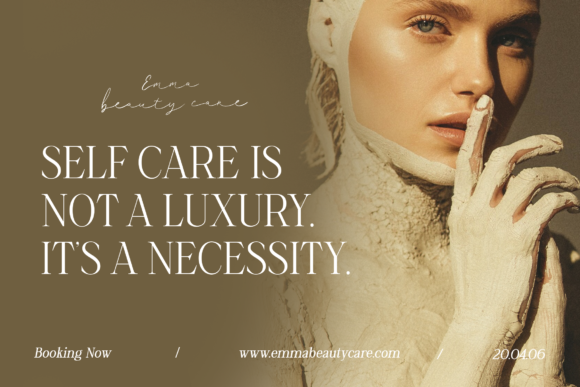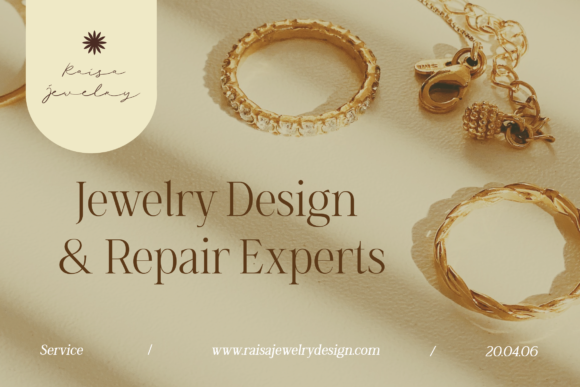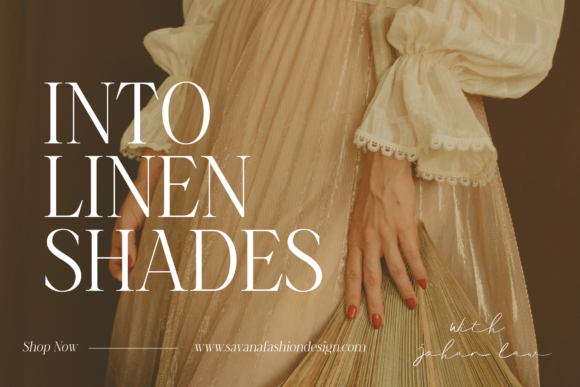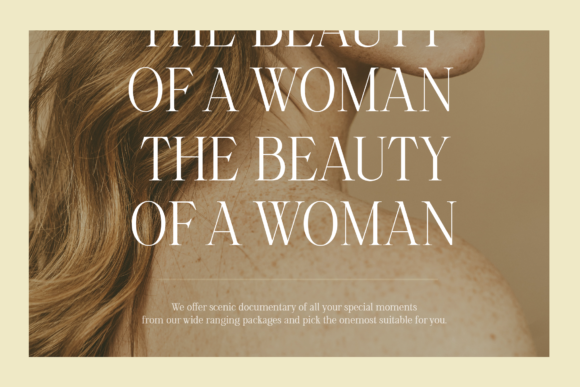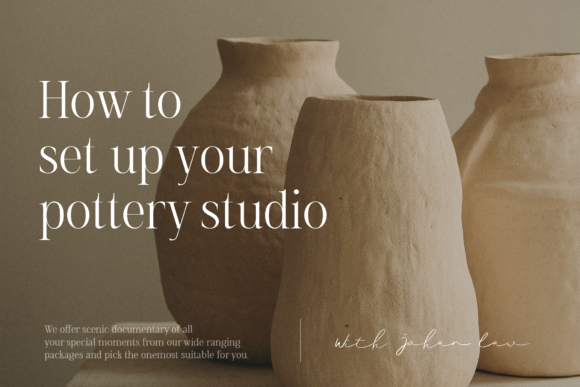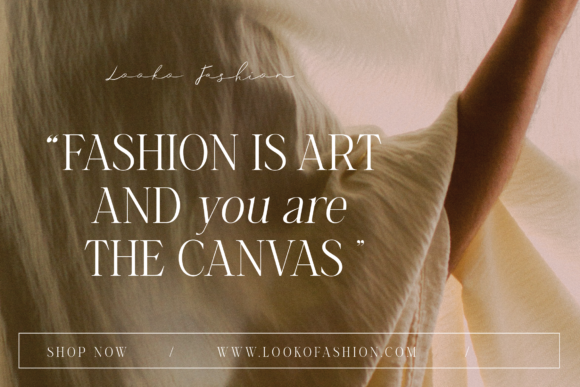
Introducing Established: The Epitome of Elegance in Condensed Serif Fonts
In the realm of typography, few fonts manage to convey the essence of luxury, elegance, and sophistication as effectively as Established. This classy and elegant condensed serif font has been meticulously crafted to meet the demands of designers and crafters seeking to infuse their projects with a touch of refinement and poise. Whether you’re aiming to create a lasting impression with a luxury logo, elevate a fashion brand’s promotional materials, or simply add a dash of class to a blog design, Established is the perfect companion for your creative endeavors.
Unleash Your Creativity with Established
Established is more than just a font; it’s a statement of elegance and sophistication. Its condensed serif design makes it incredibly versatile, suitable for a wide array of applications. Here are some of the areas where Established truly shines:
- Luxury Logo and Branding: Create a memorable brand identity with a logo that exudes class and sophistication.
- Classy Editorial Design: Elevate the aesthetic of magazines, editorials, and publications with a font that commands respect and attention.
- Woman Magazine: Cater to a refined audience with a font that embodies elegance and poise.
- Cosmetic Brand: Add a touch of luxury to your cosmetic brand’s packaging and promotional materials.
- Fashion Promotional: Stand out in the competitive fashion industry with promotional materials that ooze sophistication.
- Art Gallery Branding: Showcase art in a setting that reflects its beauty and significance.
- Museum: Convey the richness of history and culture with a font that commands reverence.
- History of Architecture: Pay homage to architectural marvels with a font that reflects their grandeur.
- Boutique Branding: Create an upscale atmosphere for your boutique that attracts discerning customers.
- Stationery Design: Elevate your stationery to a level of elegance that makes every letter and note special.
- Blog Design: Transform your blog into a haven of sophistication and class.
- Modern Advertising Design: Make your advertisements stand out with a font that’s both modern and timeless.
- Card Invitation: Send out invitations that set the tone for an elegant and memorable event.
- Art Quote: Highlight profound quotes with a font that does justice to the wisdom they impart.
- Home Decor: Incorporate elegance into your home decor with typography that speaks of refinement.
- Book/Cover Title: Give your book a title that captures its essence with a font that’s both captivating and elegant.
- Special Events: Make any event unforgettable with invitations, decor, and promotional materials that feature Established.
Why Choose Established?
Choosing Established for your design projects comes with numerous benefits:
- Versatility: Its condensed serif design makes it suitable for a wide range of applications.
- Elegance: Established exudes a level of sophistication that’s hard to match.
- Readability: Despite its condensed nature, Established maintains exceptional readability, making it perfect for both headings and body text.
- Uniqueness: Stand out from the crowd with a font that’s both distinctive and refined.
Established is more than just a font; it’s a key to unlocking a world of elegance and sophistication in your design projects. Whether you’re a designer looking to elevate your client’s brand or a crafter aiming to add a touch of class to your creations, Established is the perfect choice. Its versatility, elegance, and readability make it an indispensable tool in your typographic arsenal. Embrace Established, and let its classy and elegant condensed serif design transform your projects into timeless pieces of art.